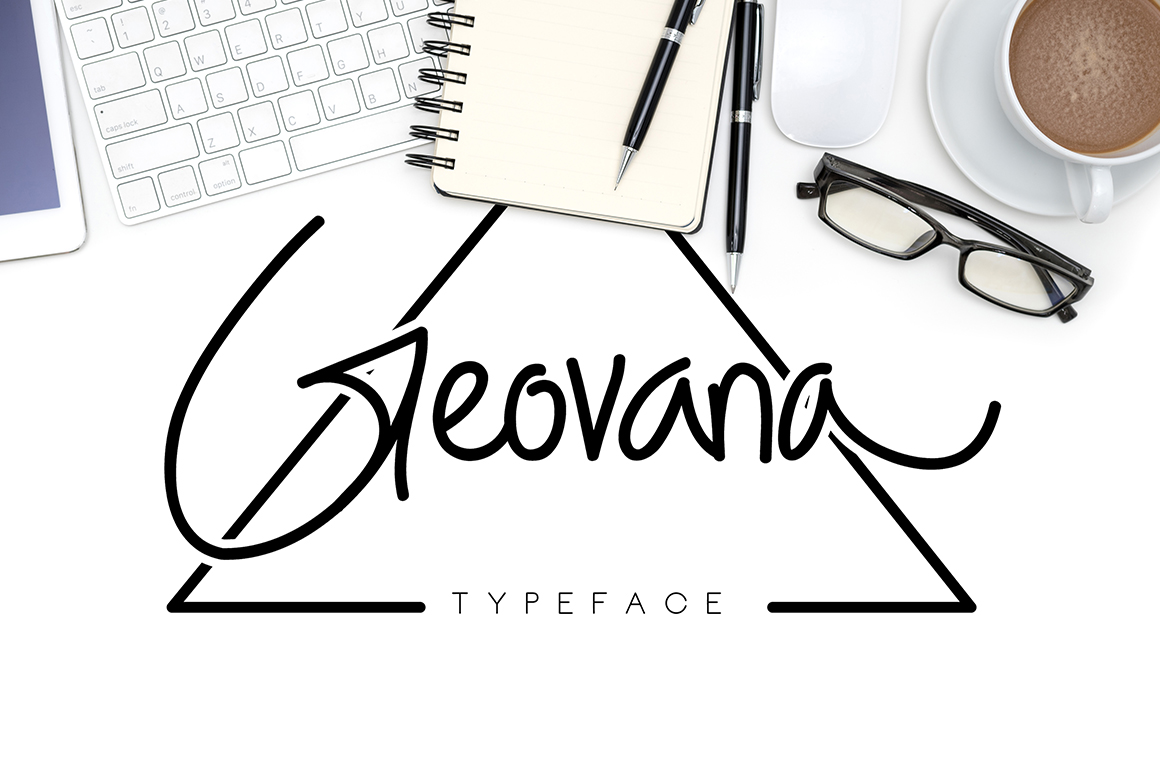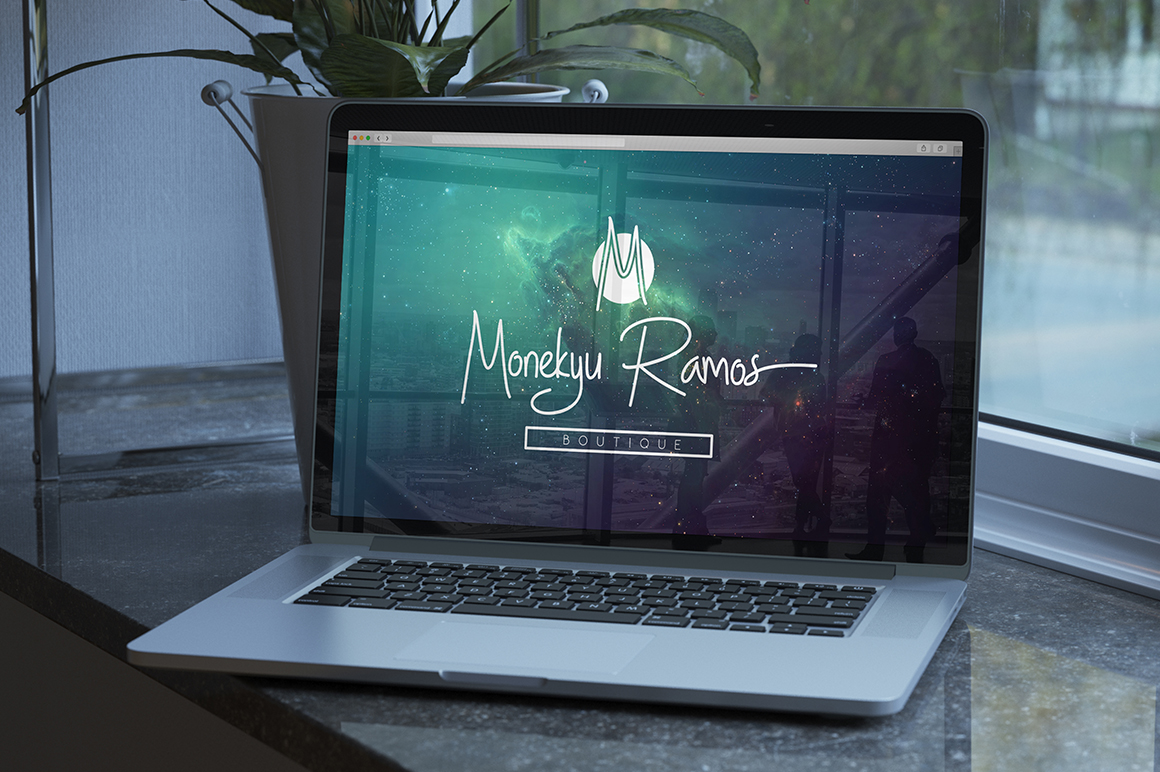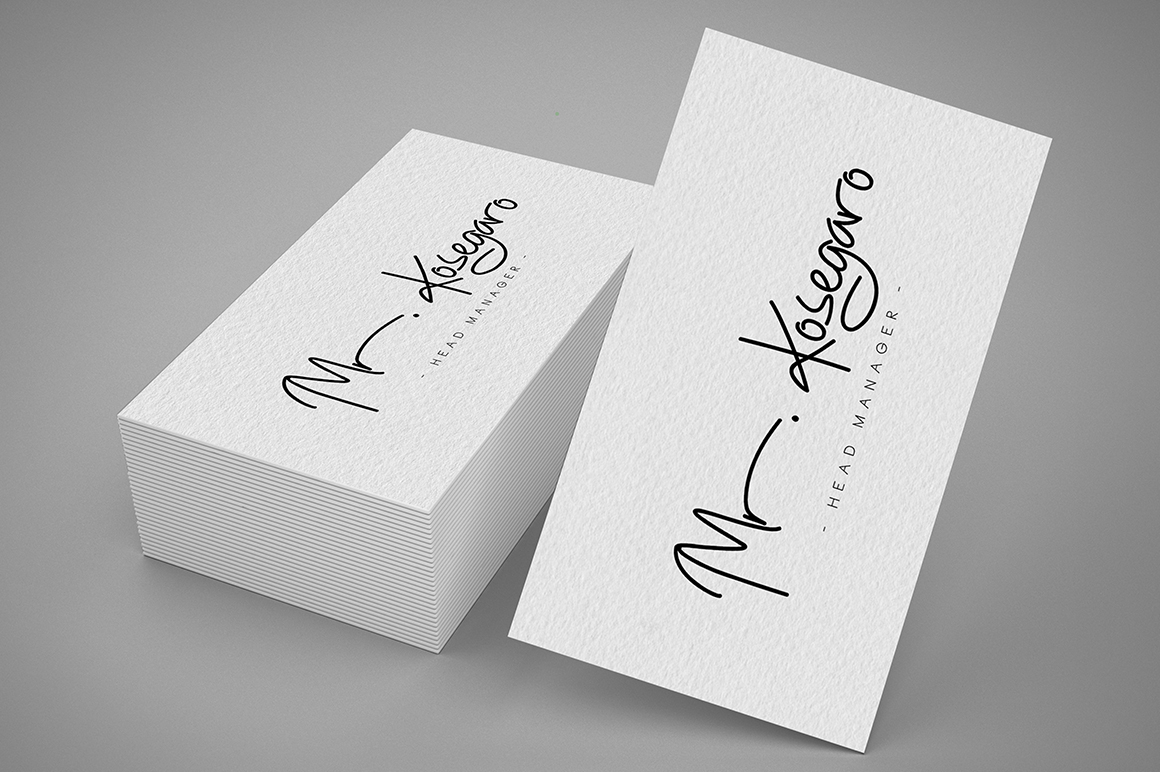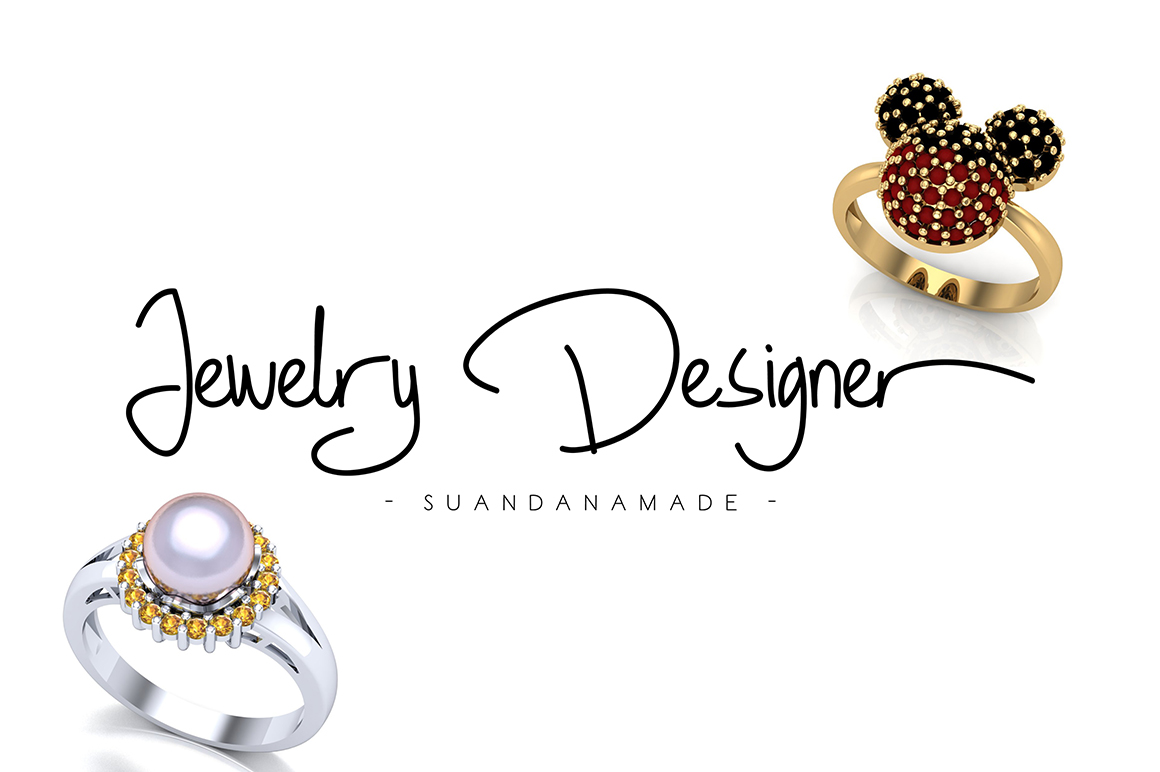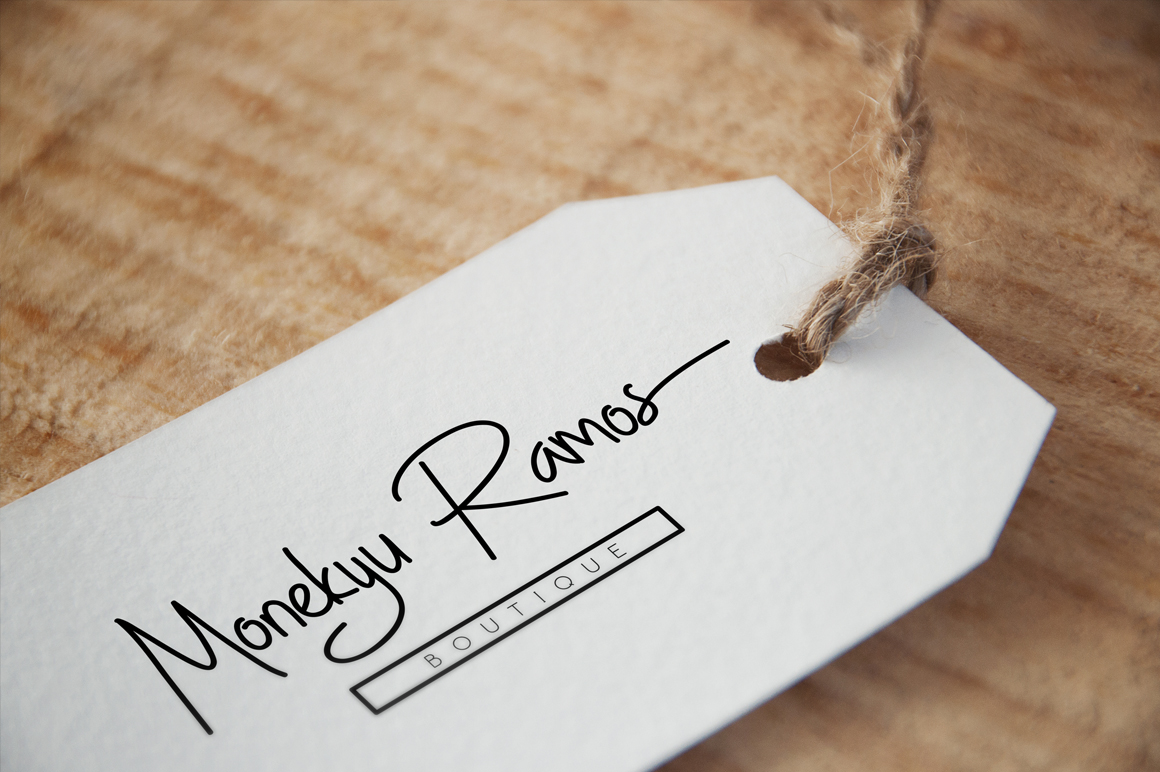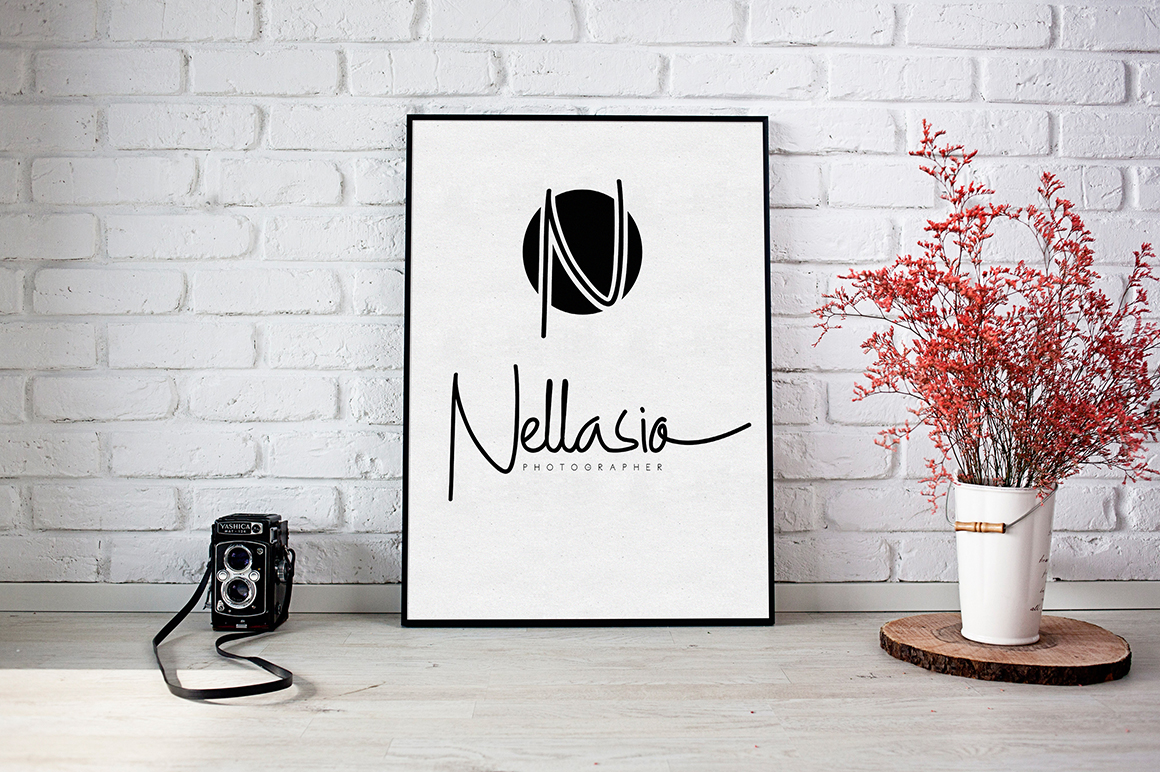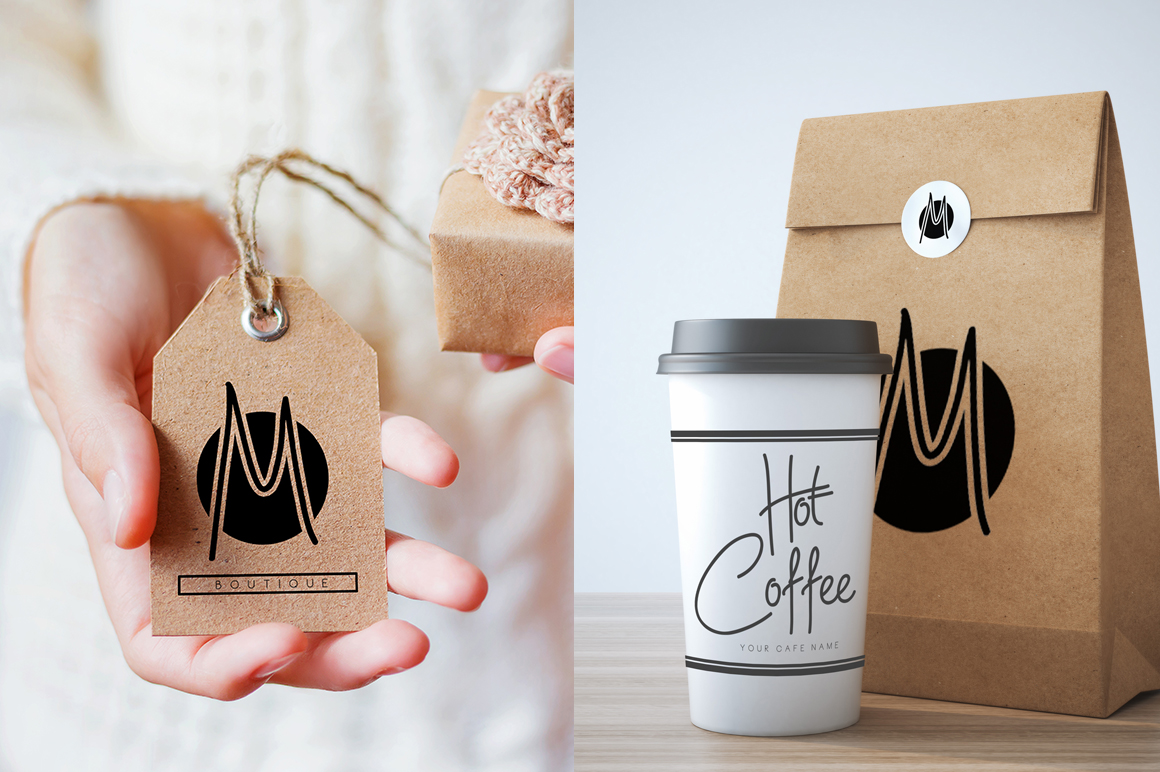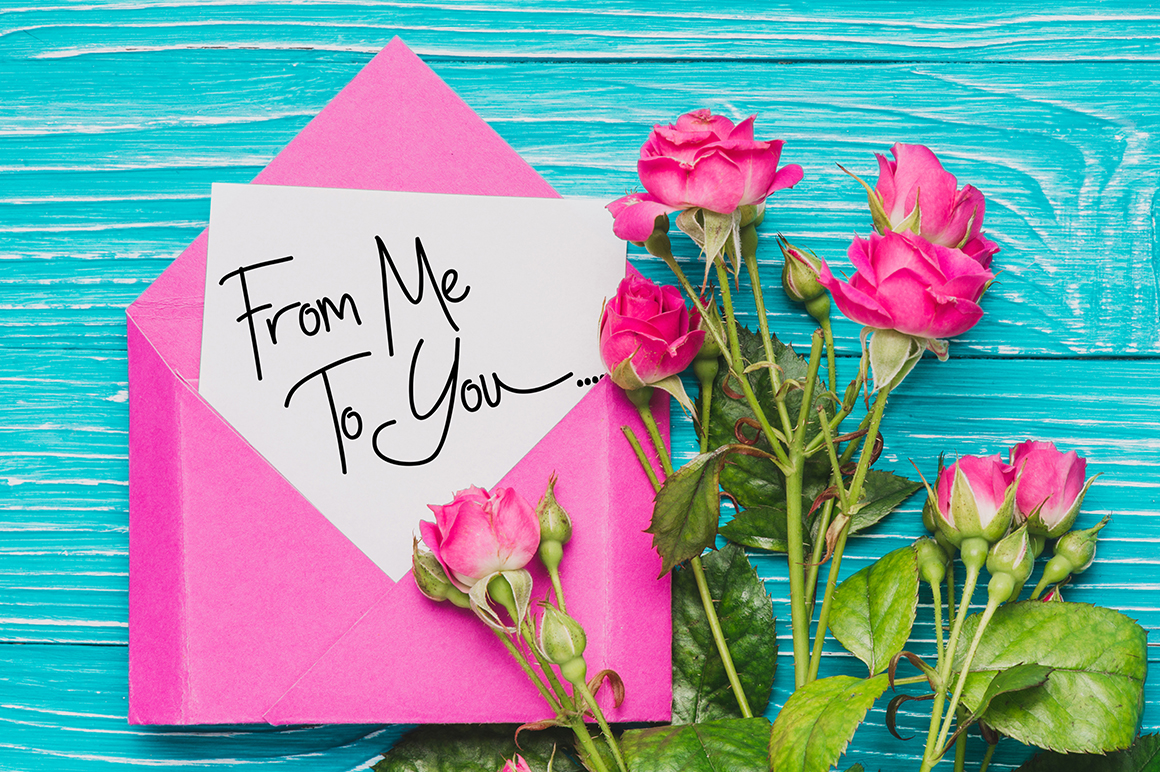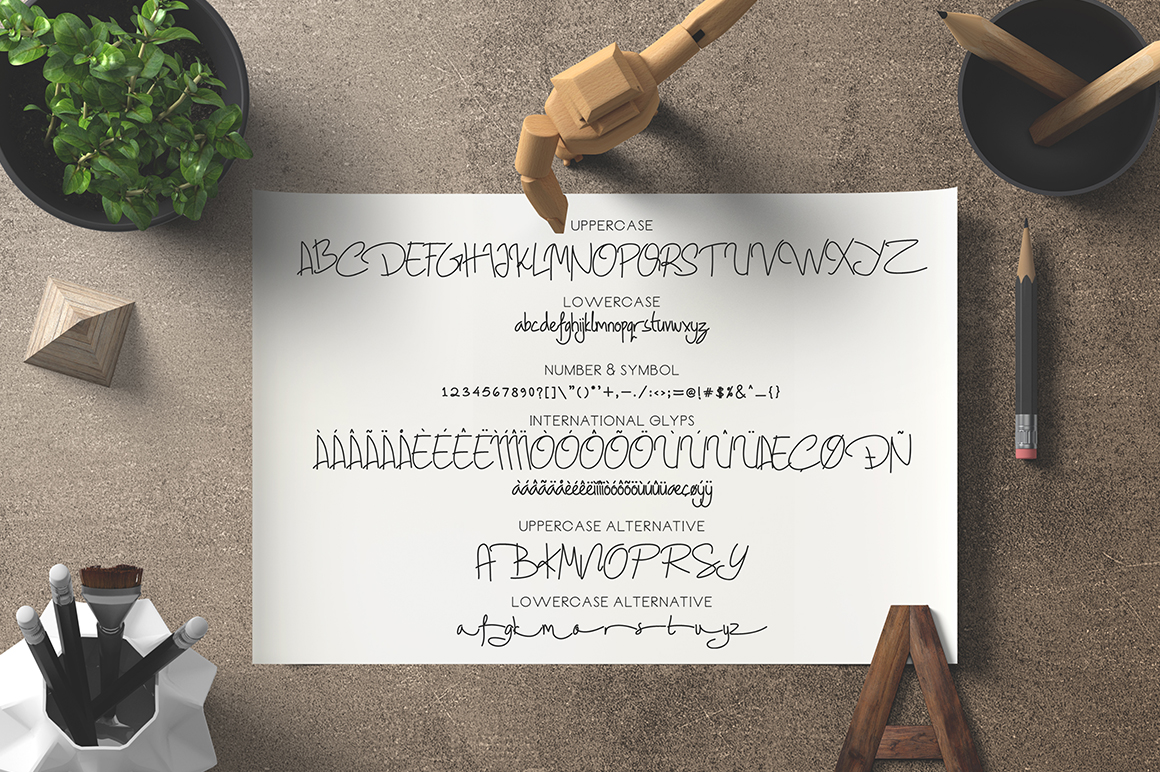
Geovana Signature Typeface Font
About Geovana Signature Typeface Font
A thin, almost monoline signature font created by madeDeduk.
Geovana has a strong character which makes it suitable for branding.